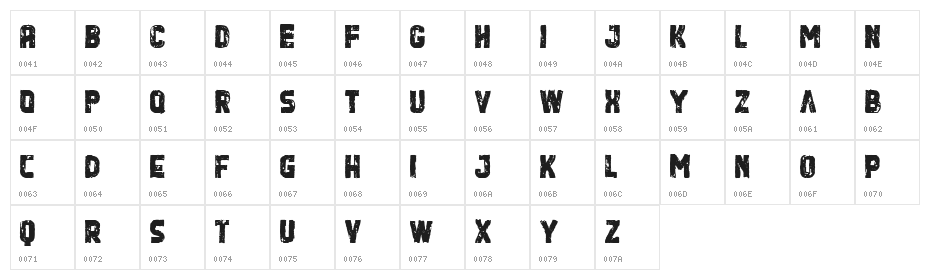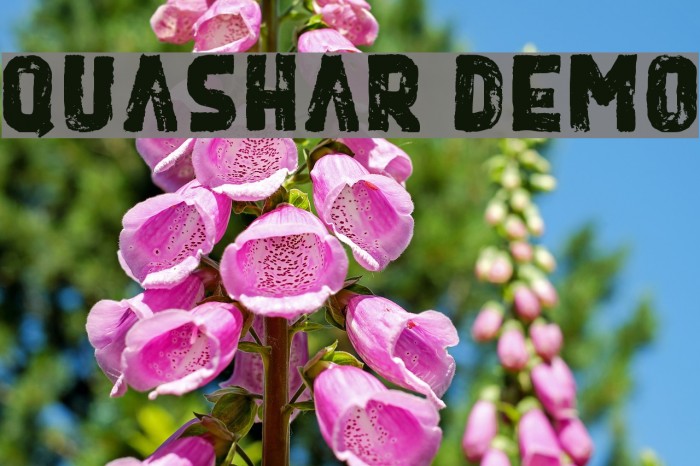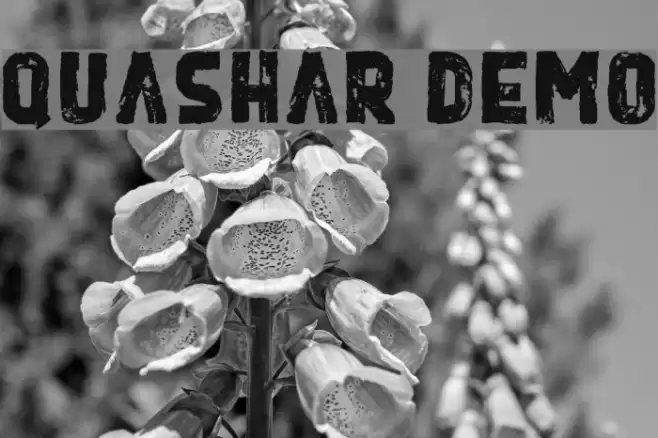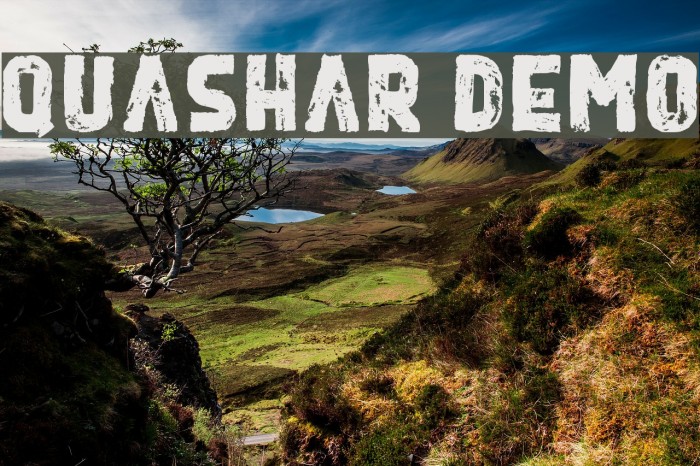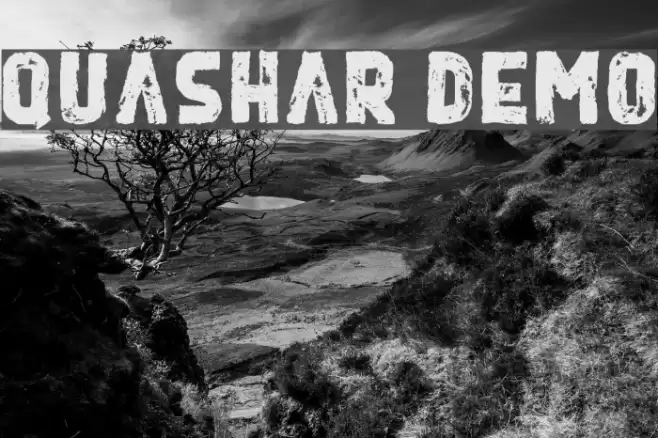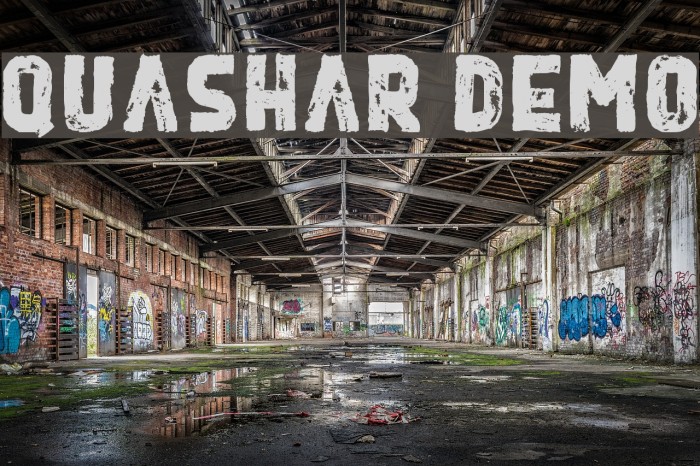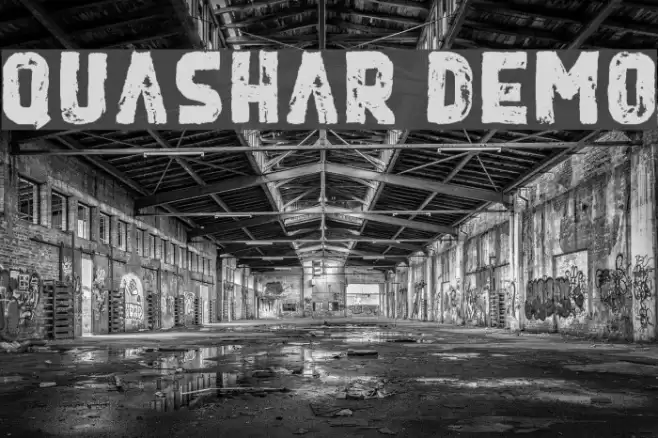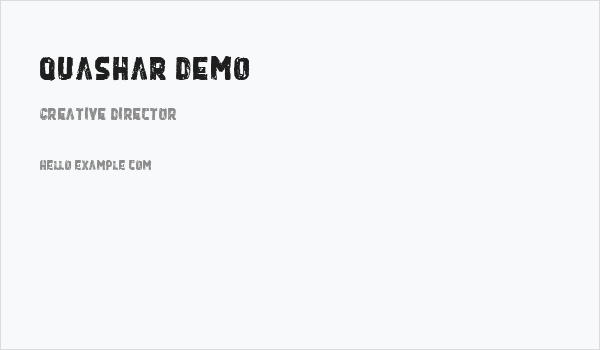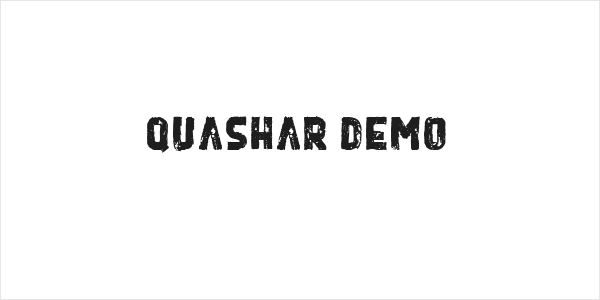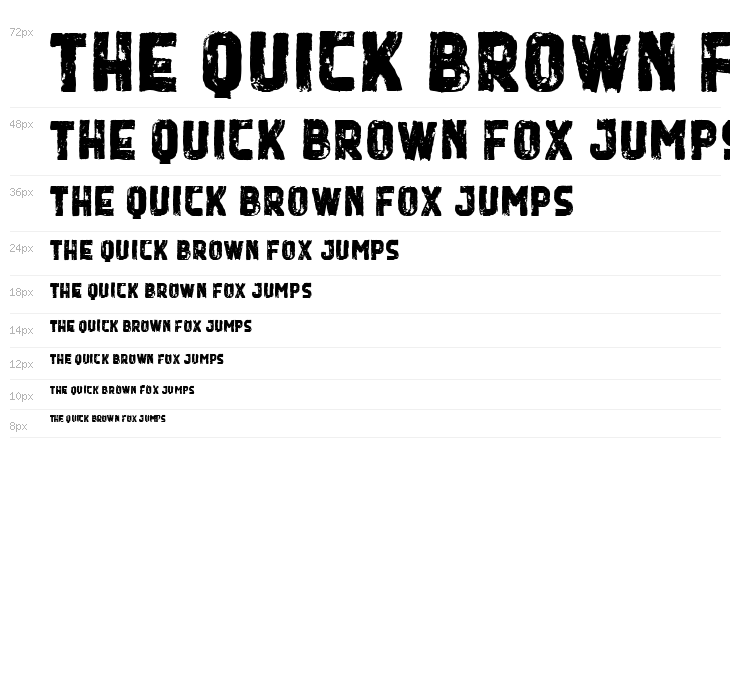
Quashar Demo Font
Quashar Demo Description
This font features a rugged, distressed appearance with a bold and impactful style. Each character is designed with a textured, worn-out effect, giving it a grunge and urban feel. The uppercase letters are uniformly bold, with a consistent height and width, while the texture adds a unique, handcrafted touch. The font's design is reminiscent of vintage posters or street art, making it ideal for projects that require a strong, eye-catching headline. Its rough edges and uneven texture create a sense of movement and energy, perfect for dynamic and creative designs.
| Overall Style | Vintage, Grunge |
| Proposed Projects | Ideal for posters, album covers, branding, and any project needing a bold, urban aesthetic. |